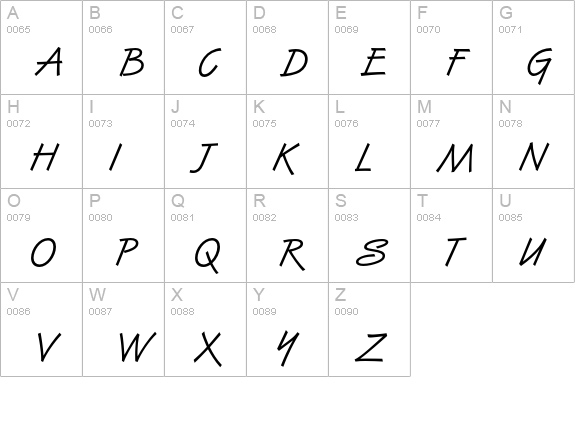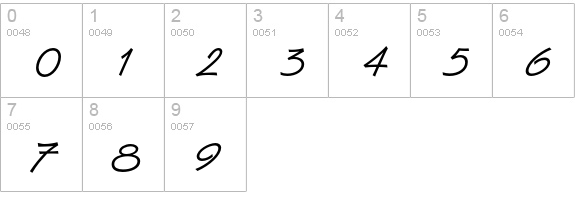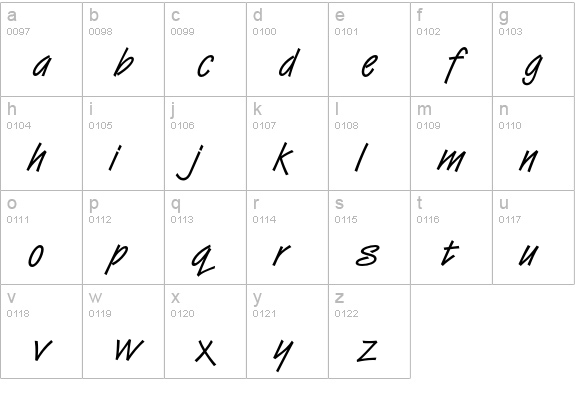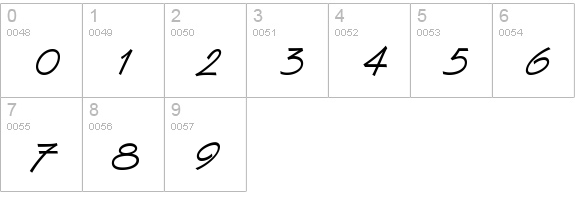
VanDijkICG Font Details
Introducing VanDijkICG, a beautifully crafted font that combines elegance and modernity effortlessly. This versatile typeface is perfect for any creative project, from branding and logo design to editorial work and web design. VanDijkICG features a unique combination of clean lines and subtle curves, resulting in a font that is both sophisticated and approachable. Its balanced letterforms and generous spacing make for excellent readability, ensuring that your message is delivered with clarity and impact. But what sets VanDijkICG apart is its accessibility - it is available for free! Now, you can elevate your designs without breaking the bank. Whether you're a professional designer or a hobbyist, this font is a valuable addition to your creative toolbox. To get your hands on this remarkable font, simply head over to FontsMarket.com. There, you'll find VanDijkICG ready and waiting, just a click away. Enjoy the freedom of artistic expression as you explore the endless possibilities that this font offers. Download VanDijkICG today and let your creativity soar. Whether you're designing a logo for a new business, creating eye-catching headlines, or adding a touch of elegance to your website, this font will elevate your work to new heights. Don't miss out on the opportunity to enhance your designs with VanDijkICG - the free font that delivers both style and substance.